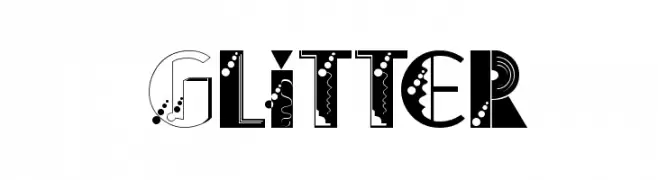
( Fonts by Eva Barabasne Olasz )
An ornate and decorative font with intricate floral patterns, perfect for vintage and artistic designs.
( Fonts by KB3Teach )
A playful, hand-drawn font with intricate spider web-like patterns.
A bold, decorative font with intricate, swirling patterns and a vintage feel.
( Fonts by Xerographer Fonts )
A playful, decorative font with bold, textured letters filled with sprinkle-like patterns.
A bold, decorative font with intricate patterns and a striking visual style.
( Fonts by EvasUniqueFonts )
A bold, decorative font with intricate doodle patterns, perfect for artistic projects.
( Fonts by Cristian Fernando Talavera Freire )
A decorative font with intricate patterns and a tribal motif.
( Fonts by EvasUniqueFonts )
A decorative font with characters made of intricate leaf patterns.
A decorative font with intricate floral patterns within each character.
A bold, geometric font with intricate line patterns and a modern style.
A bold, decorative font with an Art Deco style and intricate patterns.
An ornate, Baroque-inspired decorative font with intricate floral patterns.
A bold, Art Deco-inspired font with geometric shapes and intricate patterns.
A bold, decorative font with intricate batik-inspired patterns.
( Fonts by EvasUniqueFonts )
An ornate, decorative font with intricate patterns and bold characters.
( Fonts by EvasUniqueFonts )
An ornate and decorative font with intricate patterns and a vintage flair.
( Fonts by Southype )
A decorative font with intricate tribal patterns and a bold, urban style.
( Fonts by EvasUniqueFonts )
A playful, hand-drawn font with intricate internal patterns and a whimsical style.
An ornate and decorative font with intricate swirling patterns.
A bold, hand-drawn font with intricate line patterns and a sketch-like appearance.
( Fonts by Aleksandr Savenkov )
A geometric, abstract font with a bold, modular design and intricate internal patterns.
( Fonts by Aleksandr Savenkov )
A bold, geometric font with intricate, maze-like patterns.
A decorative font with sharp angles and geometric patterns, exuding energy and creativity.
A bold, decorative font with a retro, vintage style featuring intricate cut-out patterns.
A bold, decorative font with intricate geometric patterns and industrial flair.
A decorative, angular font with sharp geometric lines and intricate patterns.
A textured, artistic font with intricate line and dot patterns.
A modern, textured font with diagonal line patterns and geometric structure.